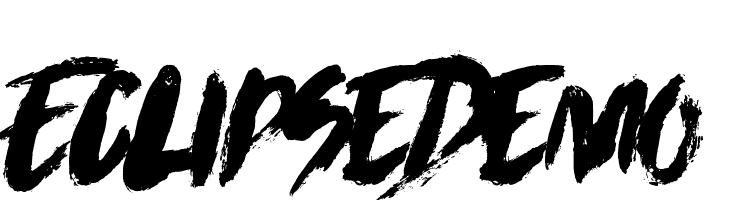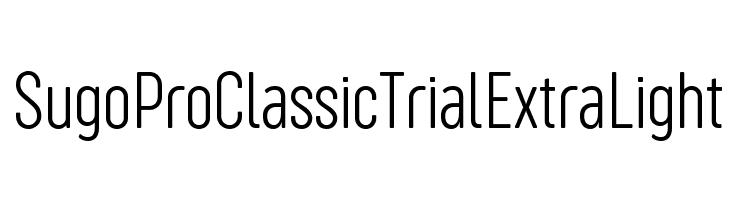
A modern, geometric font with a futuristic and sleek design.
A playful handwritten font with fluid, elegant letterforms.
A modern sans-serif font with clean lines and balanced proportions.
A bold, condensed italic font with sharp, jagged edges for dramatic impact.
A playful, casual handwritten font with irregular strokes.
A bold, italic font with a modern, angular design.
A vintage, decorative font with a mystical, hand-drawn appearance.
A bold, geometric font with a futuristic and digital aesthetic.
A bold, angular Blackletter font with high contrast and ornate detailing.
An ornate, decorative font with intricate swirls and embellishments.
A bold, decorative font with a playful, circus-inspired style.
A bold, futuristic italic font with sharp, angular edges.
Iconic pictogram font for signage and wayfinding.
A bold, modern sans-serif font with rounded geometric characters.
A distressed, textured font with a rugged, vintage feel.
A bold, playful font with a 3D shadow effect and hand-drawn style.
A playful handwritten font with smooth curves and a casual style.
A casual, handwritten cursive font with elegant, flowing letters.
A jagged, gothic-style font with thorn-like accents, ideal for dramatic themes.
A bold, playful font with thick, rounded strokes and a friendly appearance.
A playful, handwritten font with a whimsical and casual style.
A bold, classic serif font with strong strokes and pronounced serifs.
A bold, artistic font with a modern, cut-out style.
A sleek, modern font with thin, clean lines and a minimalist aesthetic.
A playful, handwritten font with a casual and friendly style.
A bold, hand-drawn font with dynamic, brush-like strokes.
A bold, textured brush font with a dynamic and energetic appearance.
A decorative font with intricate patterns and bold uppercase letters.
A bold, high-contrast serif font with sharp serifs and dramatic style.
A playful and dynamic handwritten font with fluid strokes.